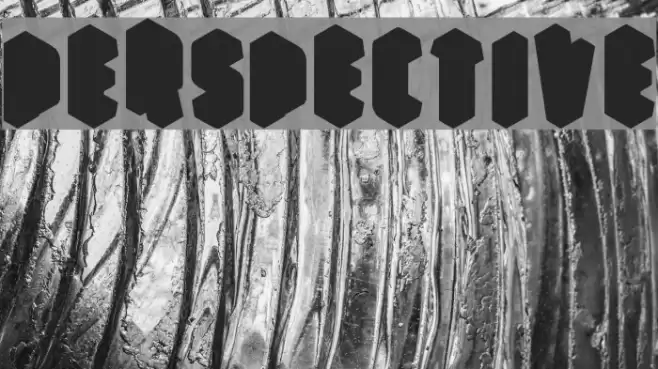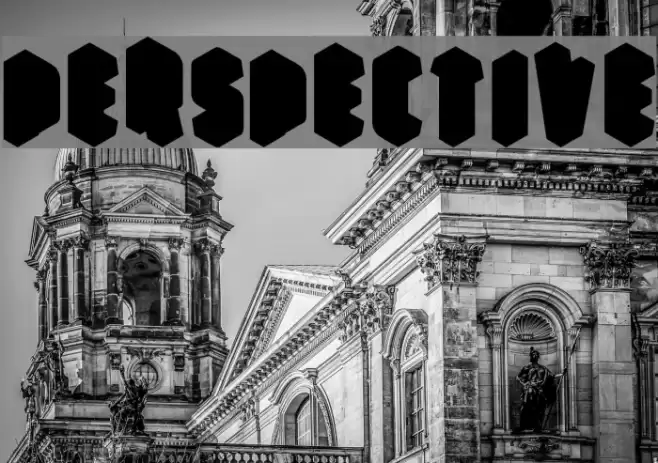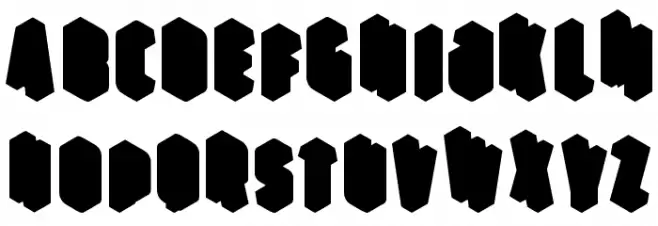
Perspective Font
Perspective Description
This font features a bold, three-dimensional style with a strong visual impact. Each character is designed with a shadow effect that creates a sense of depth and perspective, making it stand out prominently. The geometric shapes and sharp angles contribute to a modern and edgy appearance, while the consistent thickness of the strokes ensures readability. The font's unique design is ideal for creating eye-catching headlines or titles that demand attention. Its boldness and distinct style make it suitable for projects that require a strong visual presence.
A bold, three-dimensional font with a modern, geometric style from Uncategorized fonts.
- Proposed Projects: Ideal for posters, logos, headlines, and any design requiring a strong visual impact.